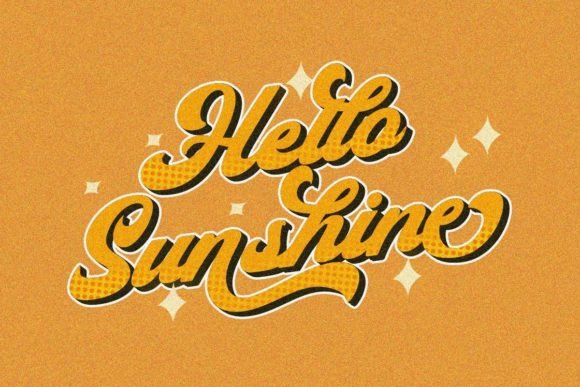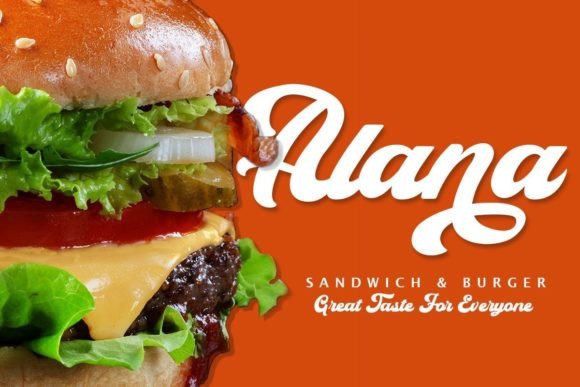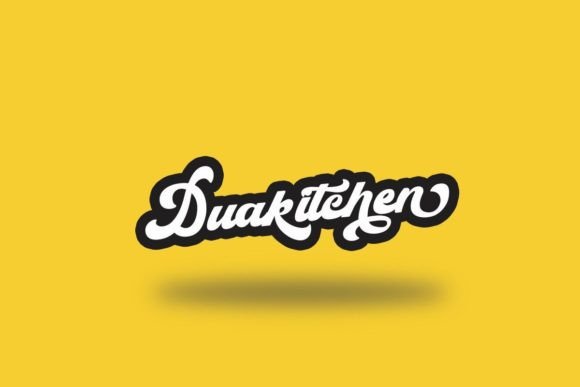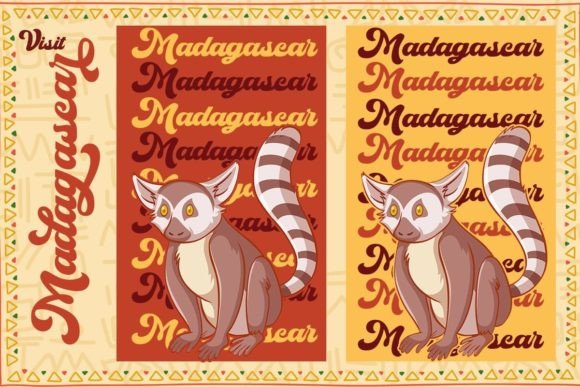
Introduction to Malona Font
Do you remember the excitement of rummaging through your grandparents’ attic, discovering old family heirlooms, and marveling at the intricate details of vintage items? For designers, that same sense of wonder can be found in the perfect font – one that seamlessly blends the old with the new. The Malona Font is a stunning example of this, offering a bold script design with a charming Retro style that’s sure to captivate your audience.
This free download is an invaluable design resource for any creative project, allowing you to add a touch of nostalgia and elegance to your work. With its extrude alternative features, the Malona Font is perfect for designers seeking to create a visually striking and high-quality design that stands out from the crowd. Whether you’re working on a logo, brochure, or website, this font is sure to elevate your project to new heights.
Thanks to its PUA encoding, accessing all the glyphs and swashes of the Malona Font is a breeze, making it an ideal choice for designers who want to add a personal touch to their work. Whether you’re looking for a modern design with a vintage twist or a bold statement piece, the Malona Font is an essential addition to any design toolkit.
Key Features of Malona Font
- Unique, elegant font style with a transparent background, perfect for overlaying on images.
- Malona Font is a high-resolution font, suitable for print and digital applications, with a resolution of 300 DPI.
- Perfect for use in various design projects, including branding, logos, and typography-based designs.
Honest Review: Malona Font
As a designer, I’m always on the lookout for high-quality design resources to elevate my creative projects. Recently, I stumbled upon the Malona Font, and I must say, it’s a great addition to any design library.
- ✨ The Malona Font is incredibly versatile, suitable for a wide range of design projects, from corporate materials to social media graphics.
- ✨ The font is highly customizable, with a range of styles and weights to choose from, making it easy to find the perfect fit for your project.
- ✨ The transparent background option is a huge plus, allowing for seamless integration into any design without distracting from the main content.
- ⚠️ The font may not be suitable for projects requiring a lot of intricate typography or complex layouts.
Overall, I’m impressed with the Malona Font’s quality and versatility. While it has some limitations, it’s an excellent choice for designers working on a variety of projects, especially those looking for a free design resource. I’d definitely recommend giving it a try, especially if you’re working on a creative project that requires a high-quality, customizable font.
Tips for Getting the Most Out of Malona Font
To get the most out of Malona Font, use it in conjunction with a transparent background to create a clean and minimalist design. This font is ideal for creating eye-catching headings and titles, and its high quality ensures that it will look great at any size.
Malona Font is commonly used in creative projects such as logo design, brochure design, and social media graphics. Its versatility and high quality make it an excellent choice for designers looking to add a touch of sophistication to their designs.